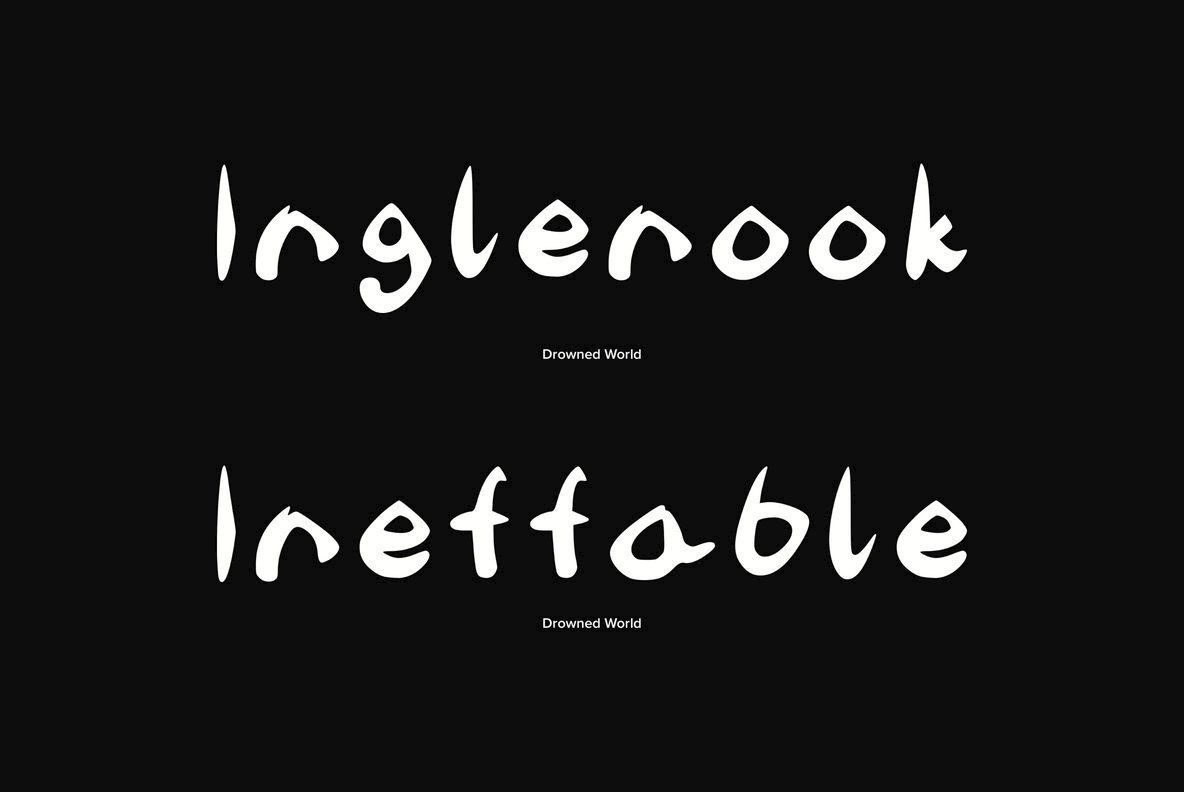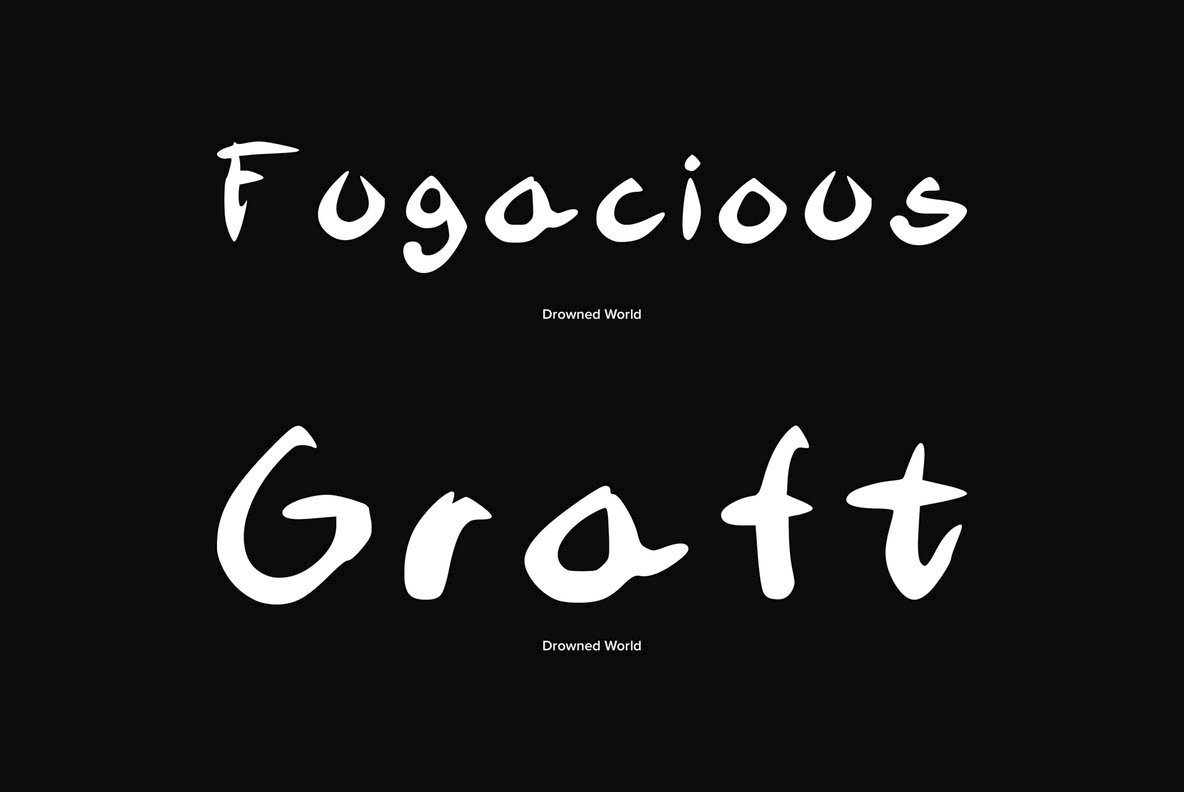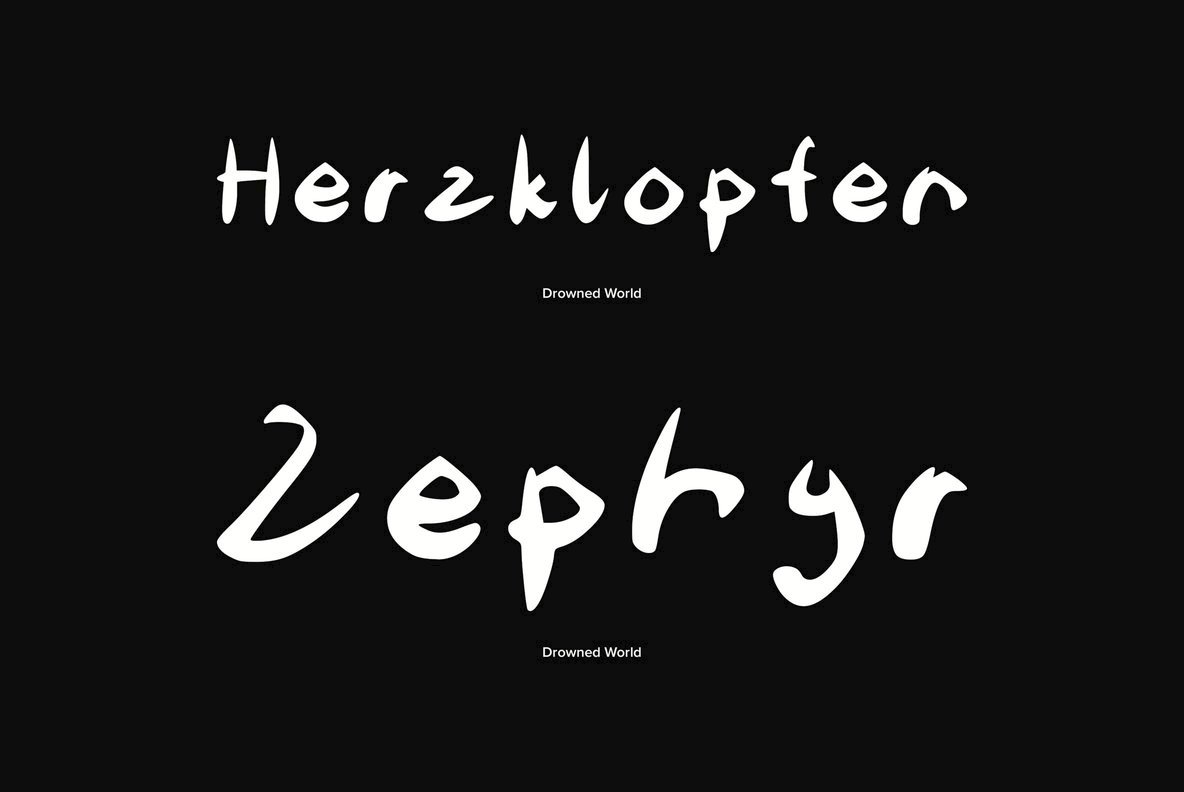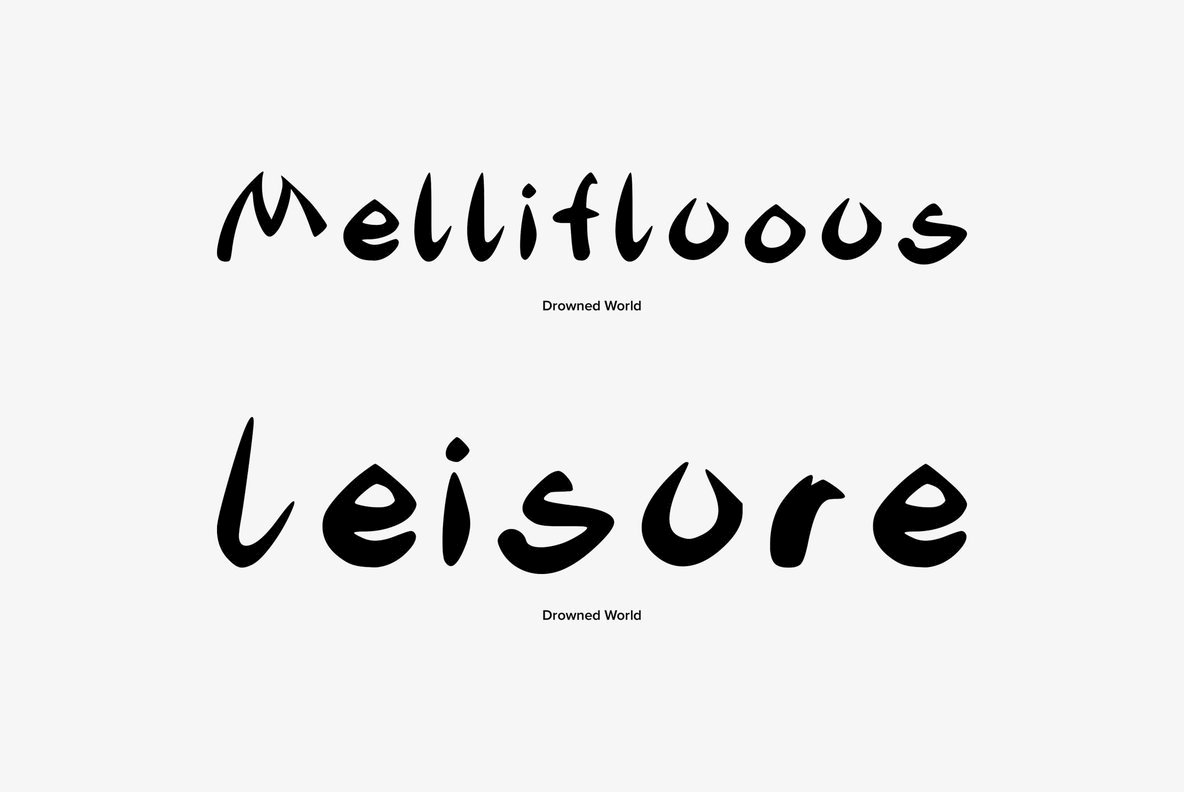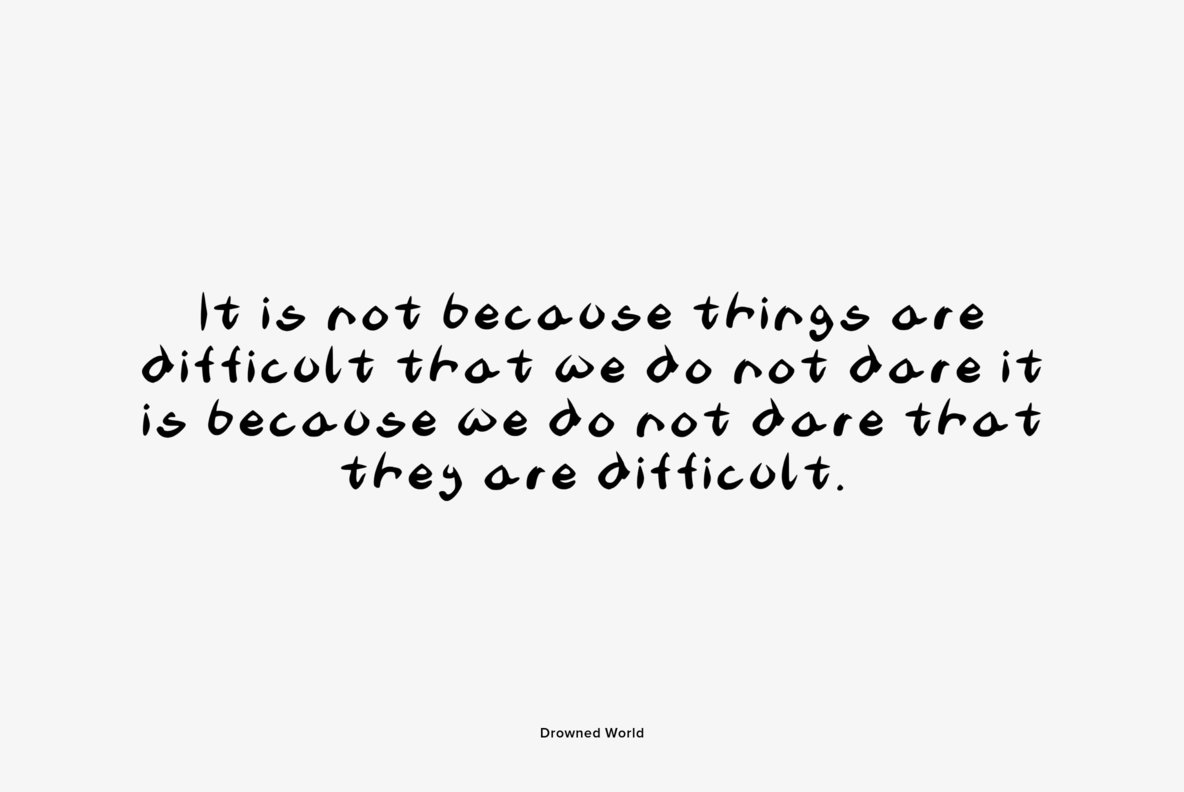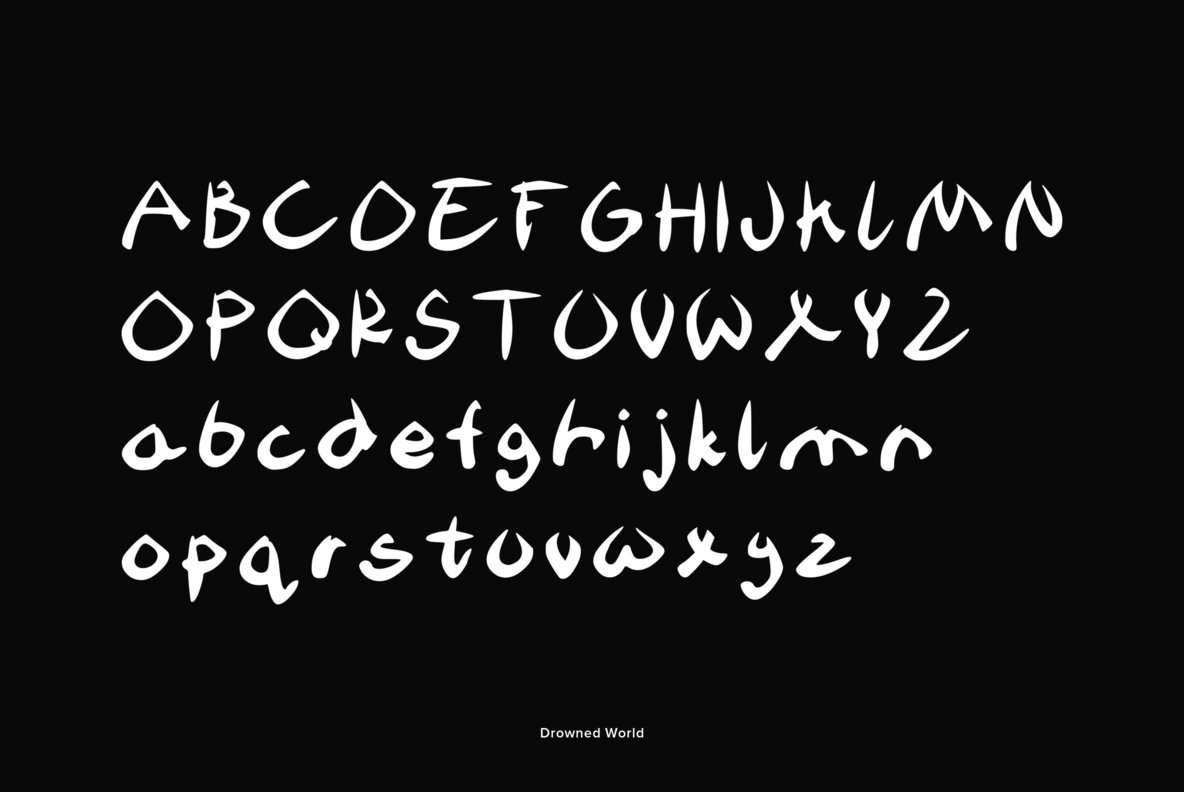
Drowned World Font
Drowned World
A wavy watery effected type face. Drowned world represents the sunken watery depths of the seven seas. The dark forbidding ocean is represents within this type, think of those sea monsters of the deep, the myths and gods whom resides in the deep Abbis, if they wrote this would be the font they would use.